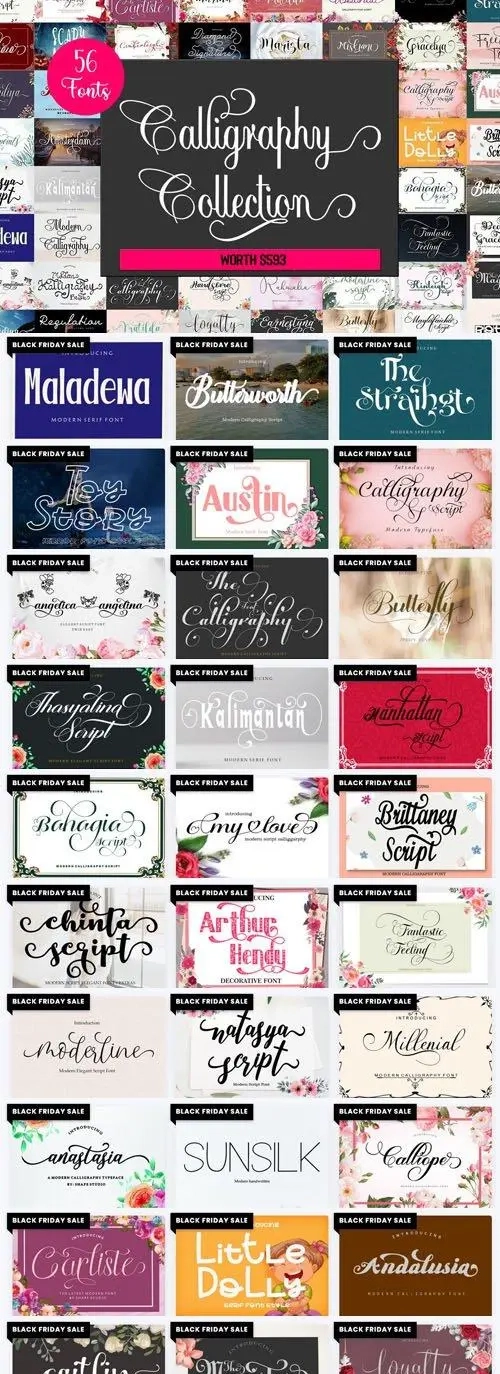
Elevate your design projects with the Calligraphy Fonts Collection, featuring 56 premium fonts that bring elegance and sophistication to any text. Each font in this collection is meticulously crafted to provide a unique touch, perfect for branding, logos, invitations, and more.
• 56 distinct calligraphy fonts
• Variety of styles and weights
This collection includes a range of styles, from traditional cursive to modern script, ensuring you find the perfect fit for your creative needs.
• Ideal for wedding invitations and event stationery
• Great for branding and logo design
• Perfect for social media graphics and marketing materials